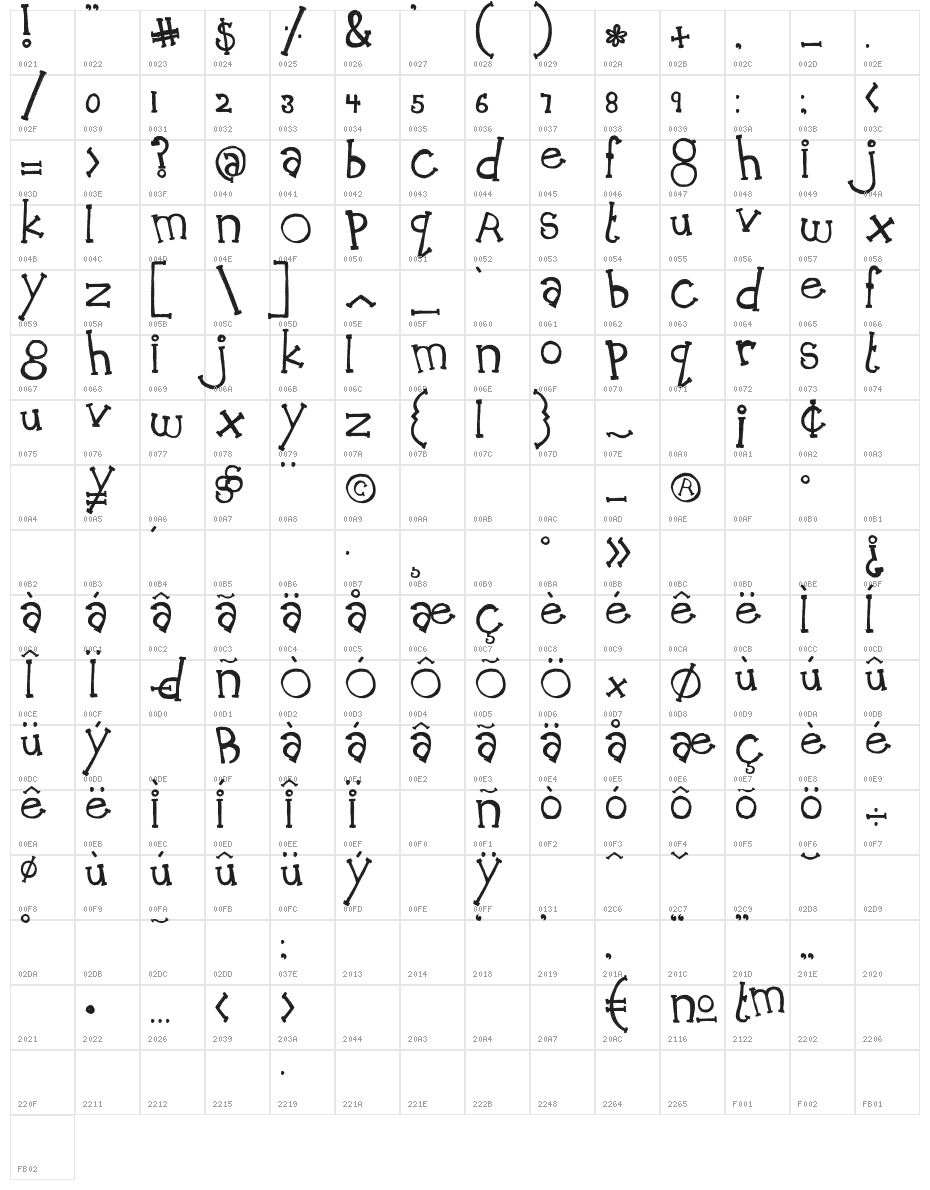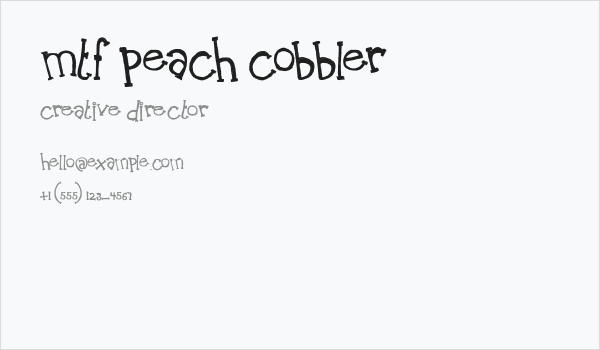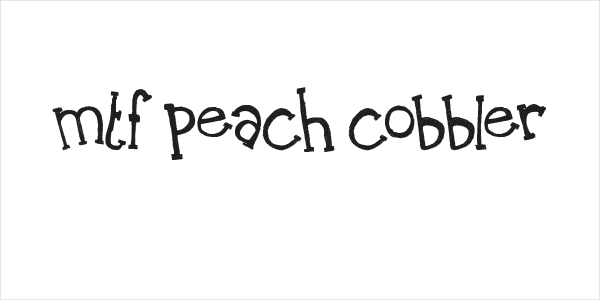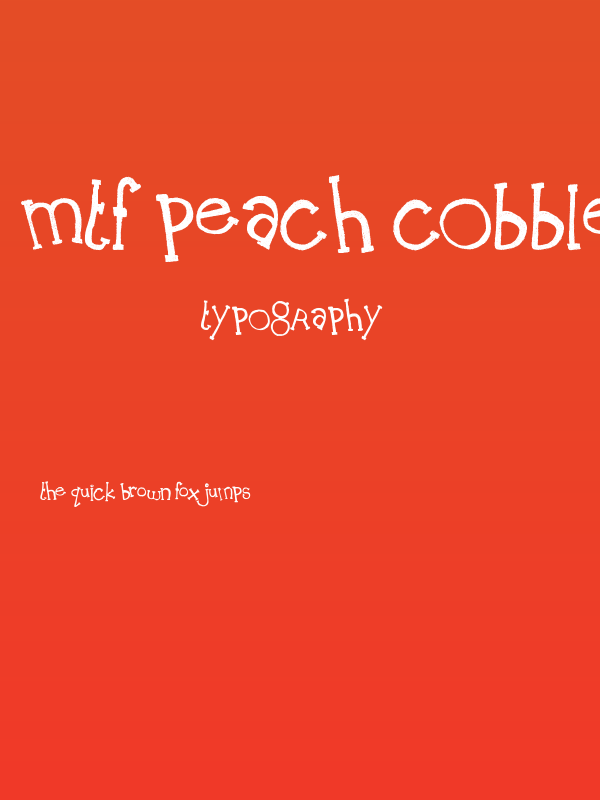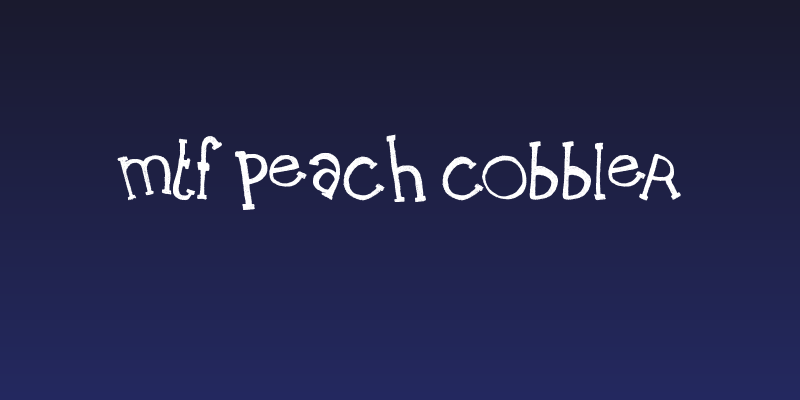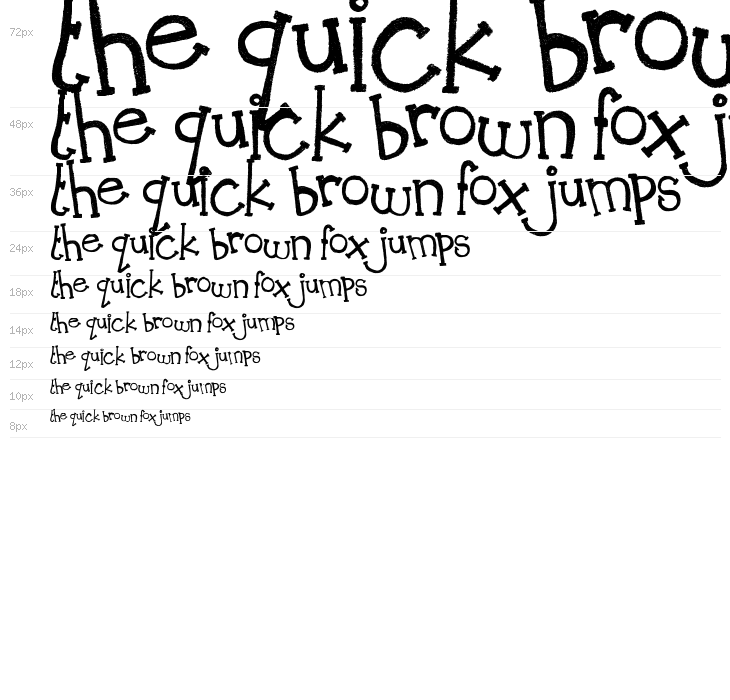
MTF Peach Cobbler Font
MTF Peach Cobbler Description
This playful and whimsical font features a hand-drawn aesthetic with irregular, slightly wavy lines that give it a casual and friendly appearance. The characters are bold and rounded, with a unique charm that makes them stand out. The uppercase and lowercase letters maintain a consistent style, while the numerals and special characters add to the font's versatility. The overall design is reminiscent of a child's handwriting, making it perfect for projects that require a touch of fun and creativity.
| Proposed Projects | Ideal for children's books, playful branding, greeting cards, and creative posters. |